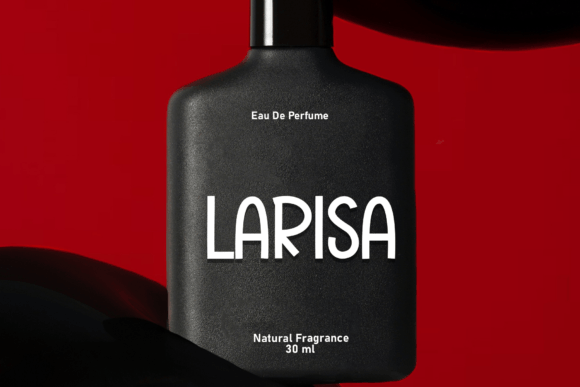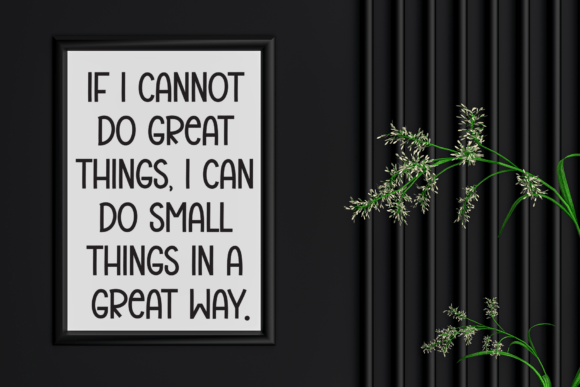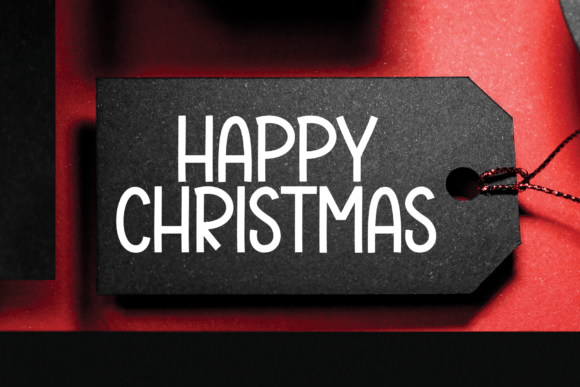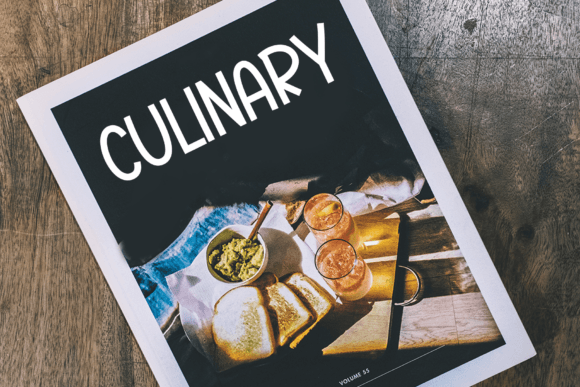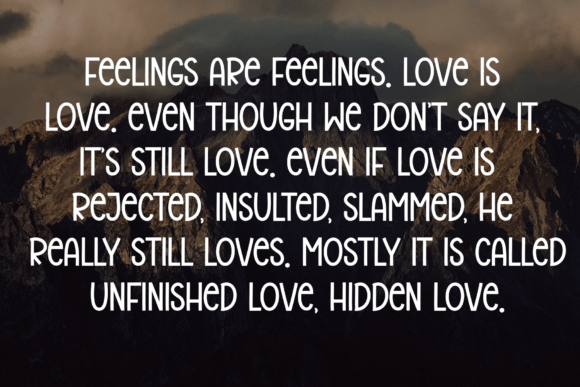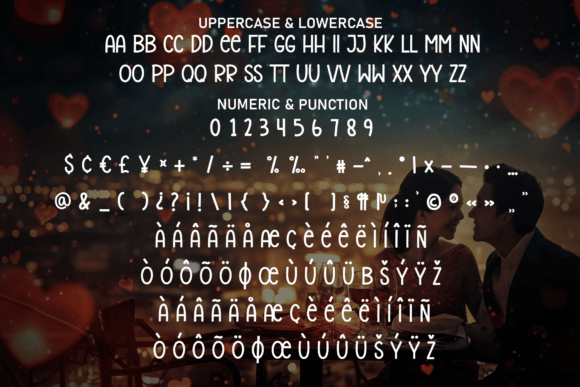
Introduction to Night Valentine Font
Introducing a charming and approachable handwritten display font that exudes an aura of all things delightful and friendly.
Imbued with an irresistible charm and inviting character, this delightful typographic design is perfect for crafting wedding invitations, heartfelt cards, or any other design project that craves a sprinkle of fun The inviting warmth of this font transforms any text into visually captivating and emotion-stirring storytelling that enchantingly captures the eye and heart of the reader.
Key Features of Night Valentine Font
Why Choose Night Valentine Font?
Night Valentine Font offers exceptional quality and versatility, making it a valuable addition to your design toolkit. Whether you’re creating for personal projects or commercial use, Night Valentine Font delivers professional results.